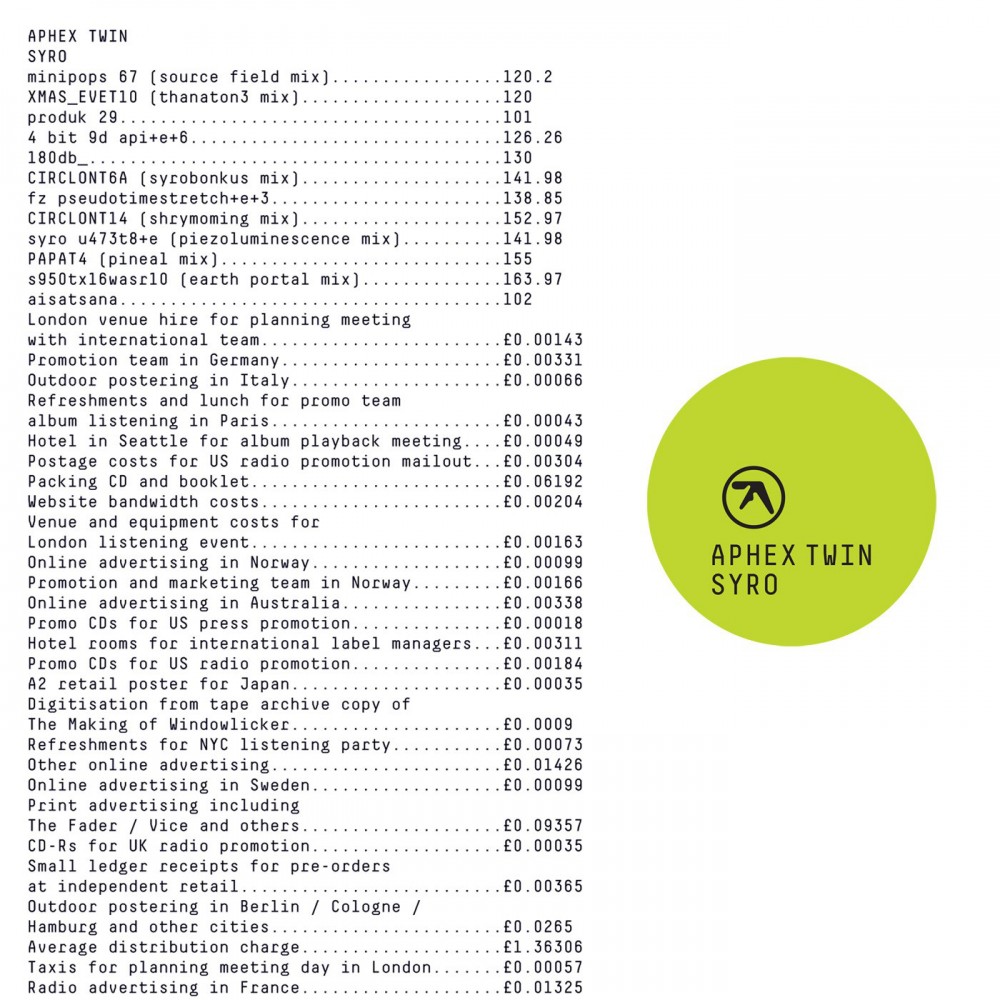
Syro (Aphex Twin) Font
ElectronicSyro is the sixth studio album by Aphex Twin, released in 2014. It features a mix of experimental electronic music with influences from various genres such as techno, ambient, and IDM. The design for the album cover of Syro was done by The Designers Republic, a UK-based design studio.
The text on the cover uses the font Decima Mono, a four-weight condensed geometric sans serif, which is available for preview and purchase here.